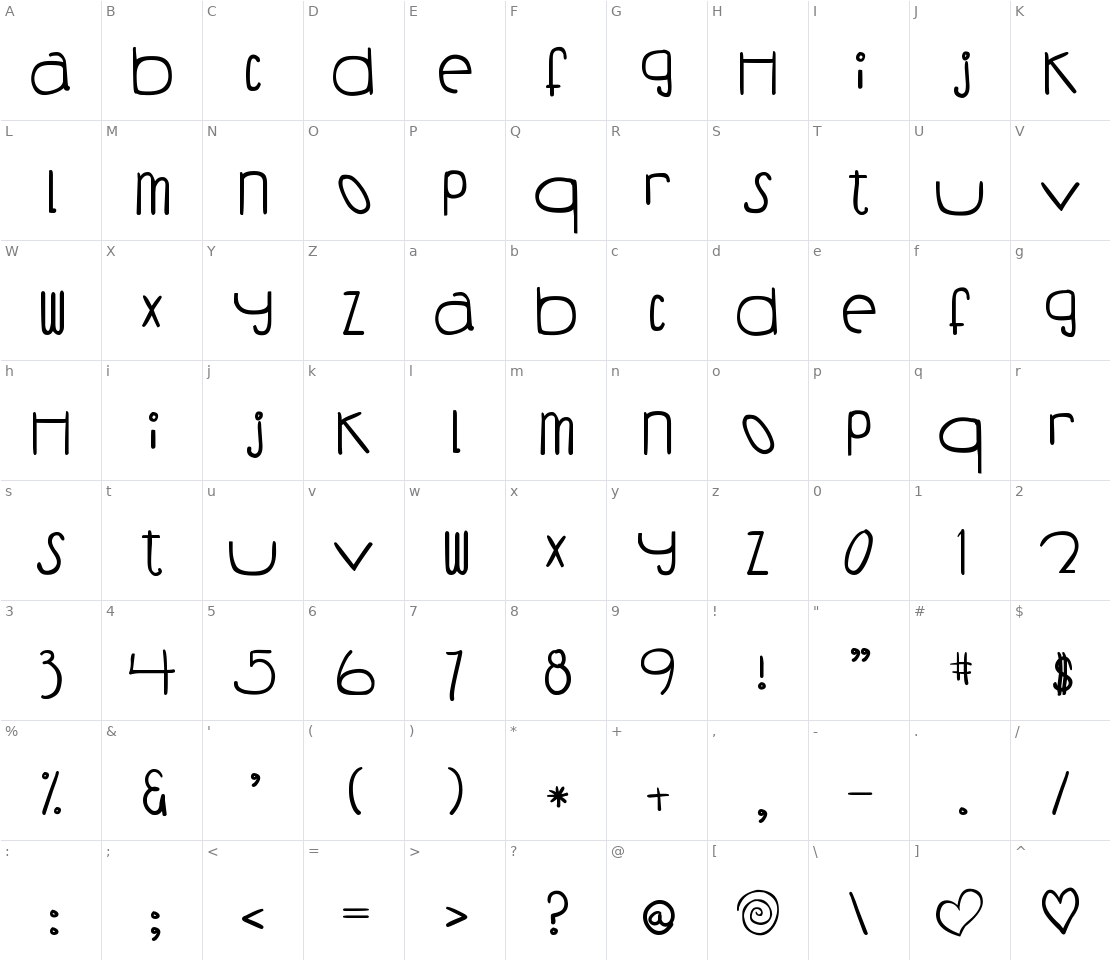
DJB Coffee Shoppe Buzzed
DJB Coffee Shoppe Buzzed is a thin, casual handwritten face from DJB Fonts with a jittery, slightly caffeinated energy to its letterforms. The strokes are lightweight and uneven, giving it a genuinely spontaneous feel, like quick notes scrawled on a napkin. It works naturally for informal branding, packaging, social media graphics, and personal projects where a touch of quirky warmth matters more than refinement.